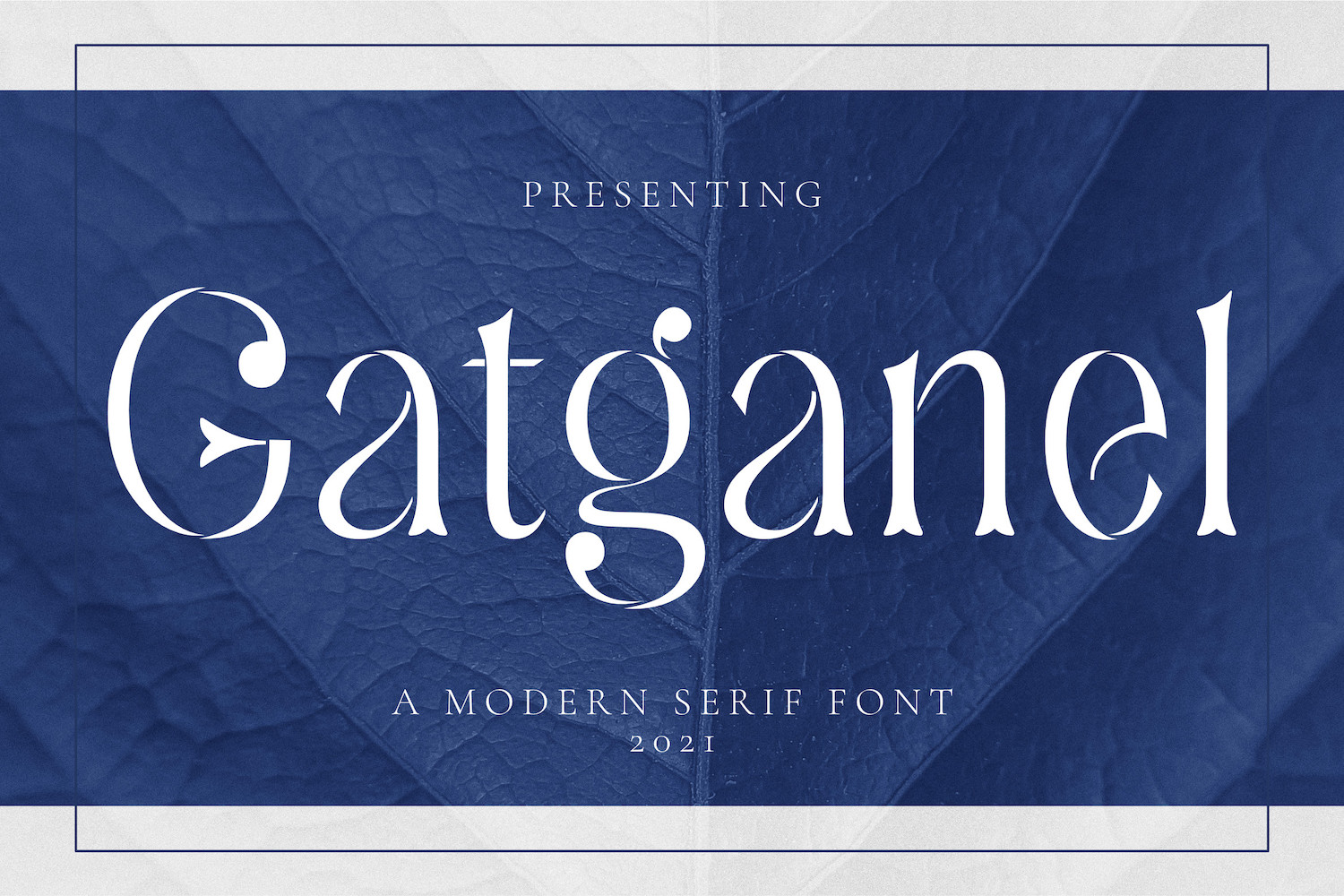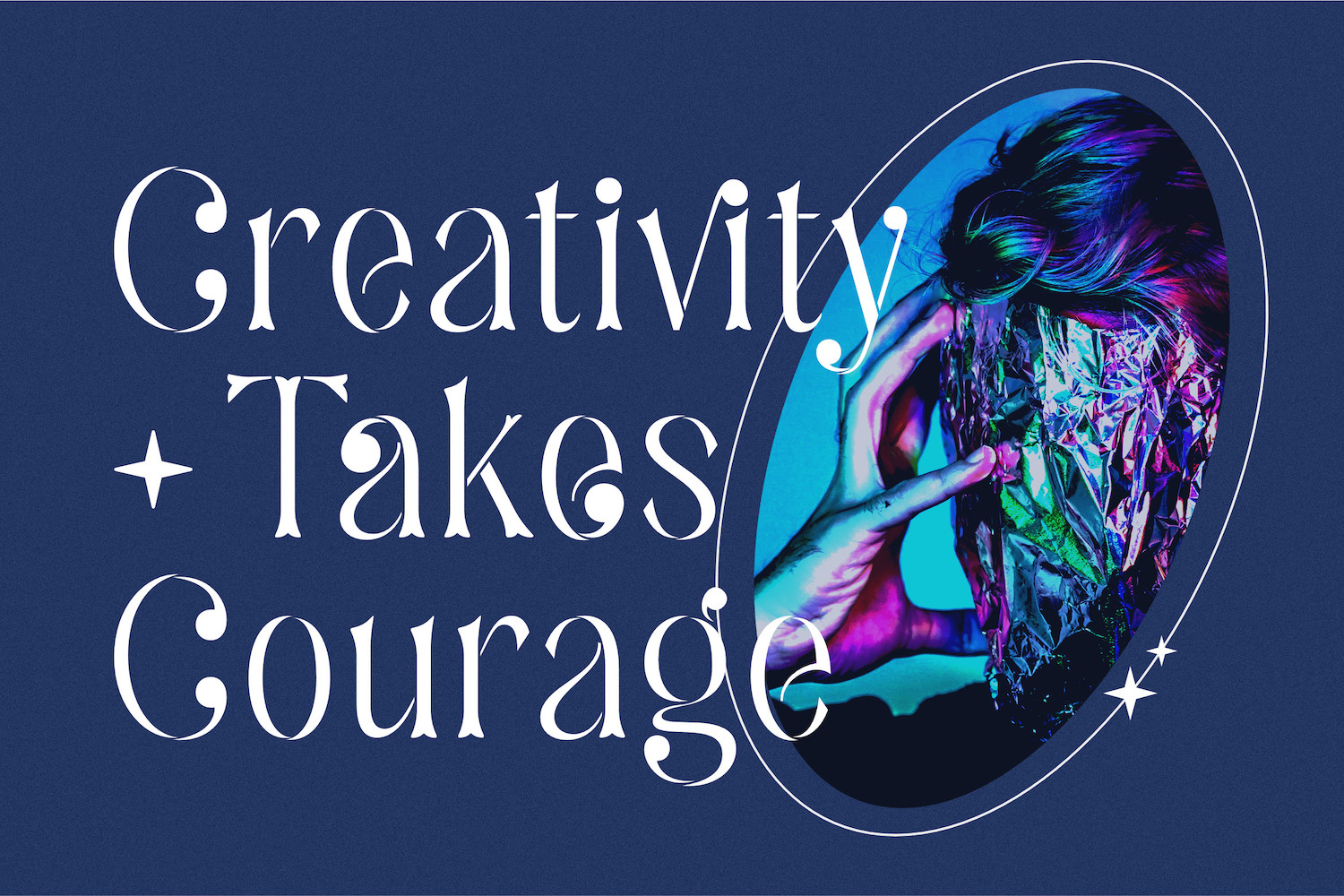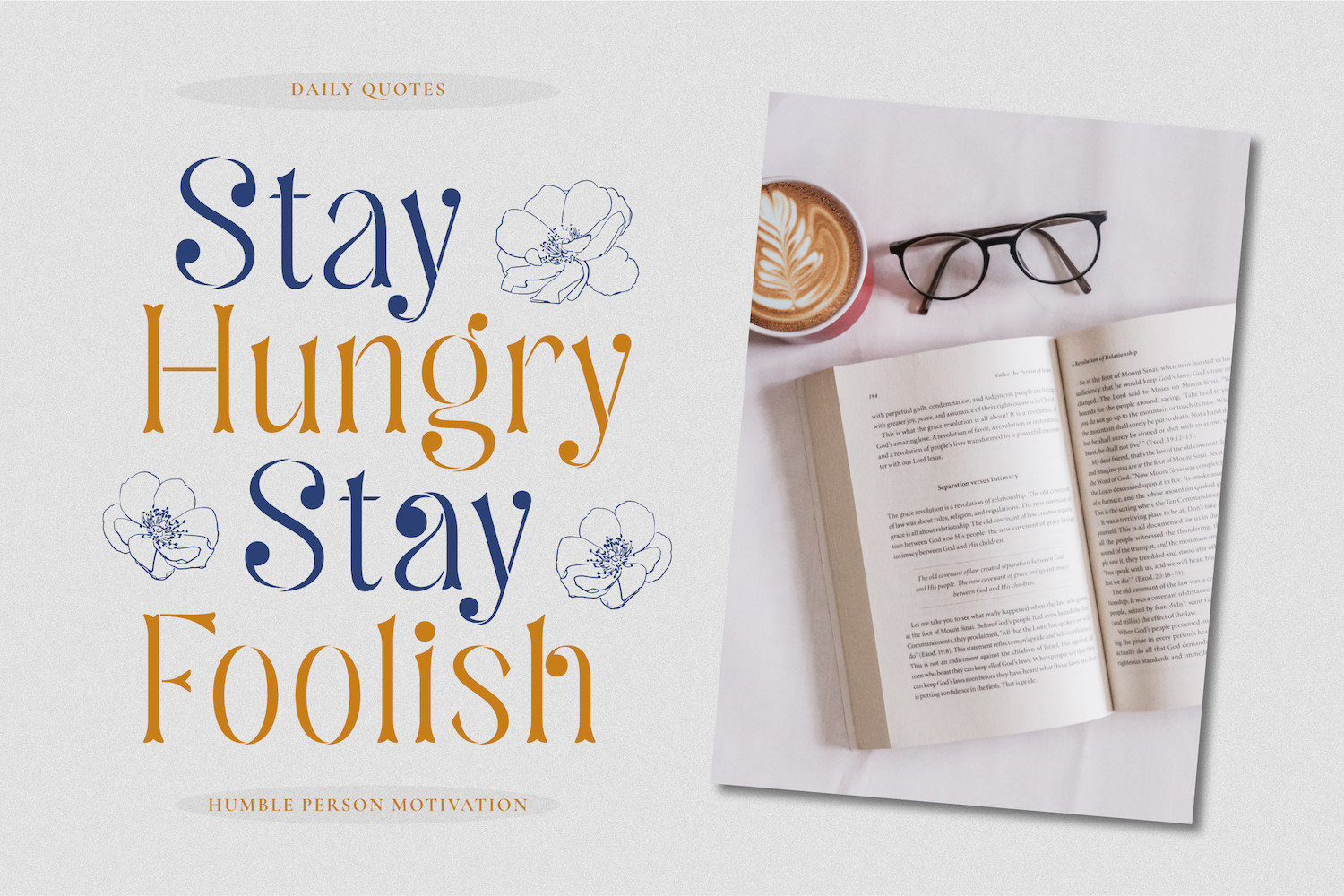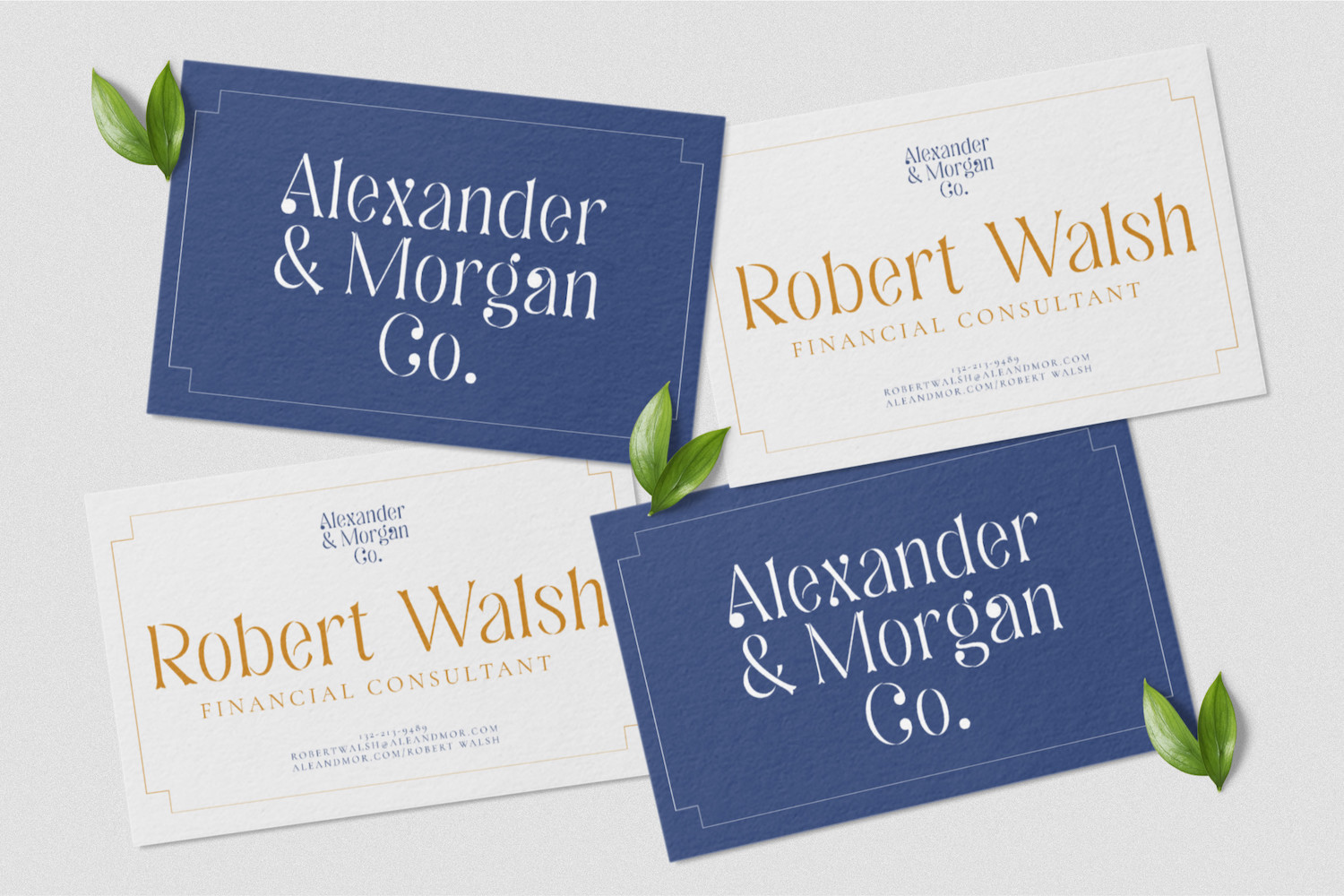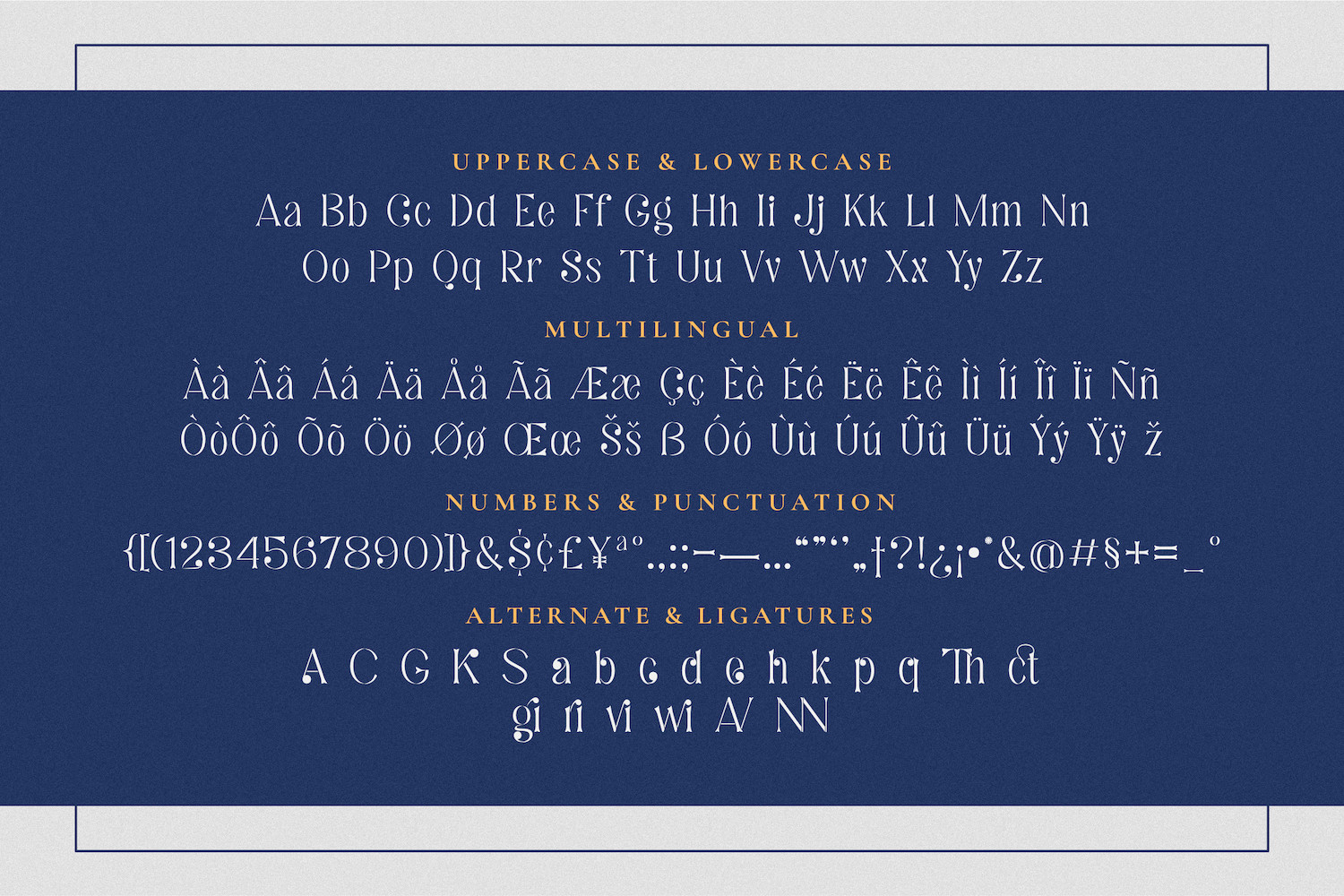
Gatganel is a modern serif font with a refined character and unique design flair. Its elegant curves, high contrast strokes, and ornamental terminals make it ideal for editorial layouts, branding, and packaging with a premium touch. Each letterform is crafted to reflect both classical beauty and contemporary innovation, ensuring a strong visual impact.
Equipped with uppercase, lowercase, multilingual support, punctuation, and a selection of alternates and ligatures, Gatganel offers excellent versatility for creative professionals. Whether you’re designing business cards, logos, or quotes, this typeface brings sophistication and distinctiveness to your typography projects.
Gatganel